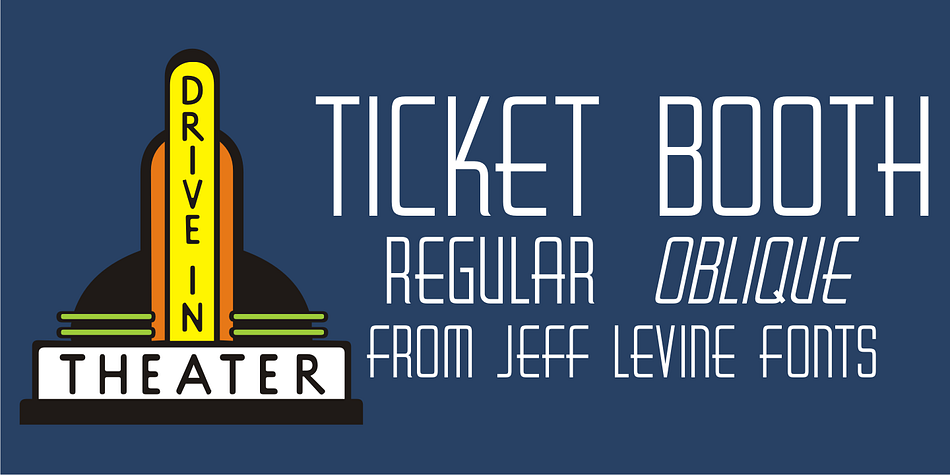
Ticket Booth JNL is a display sans and art deco font family. This typeface has two styles and was published by Jeff Levine Fonts.
The opening title card for 1940’s “Two Girls on Broadway” was the basis for Ticket Booth JNL. A typical Art Deco typeface, its features include a squared letter shape with rounded corners and a thin character weight.